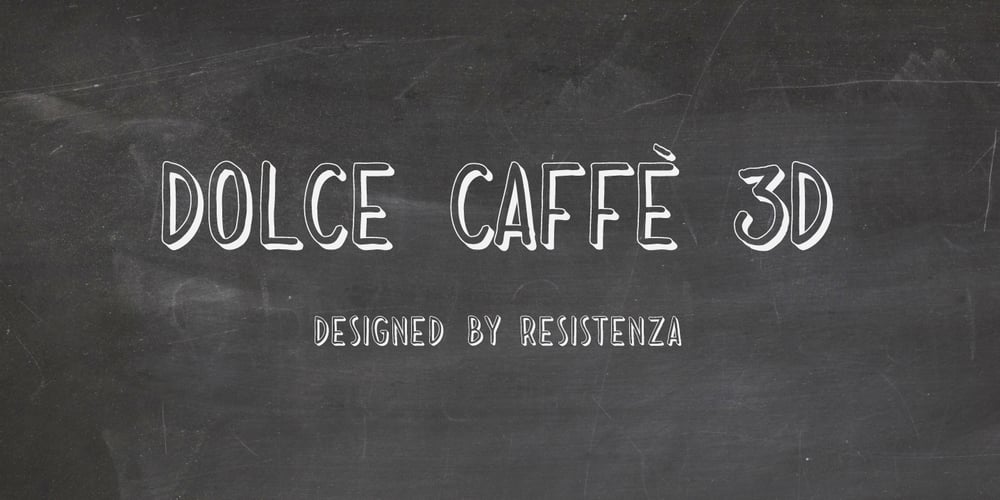
Dolce Caffe 3D Font Family was designed by published by Resistenza. Dolce Caffe 3D contains 3 styles and family package options. Dolce Caffe was a handwritten font designed in the 2011 inspired in some berliner menu. Now we developed a 3D, 3D Rough and a Shadow version. They are very legible and high in style and carefully constructed all-uppercase letters.